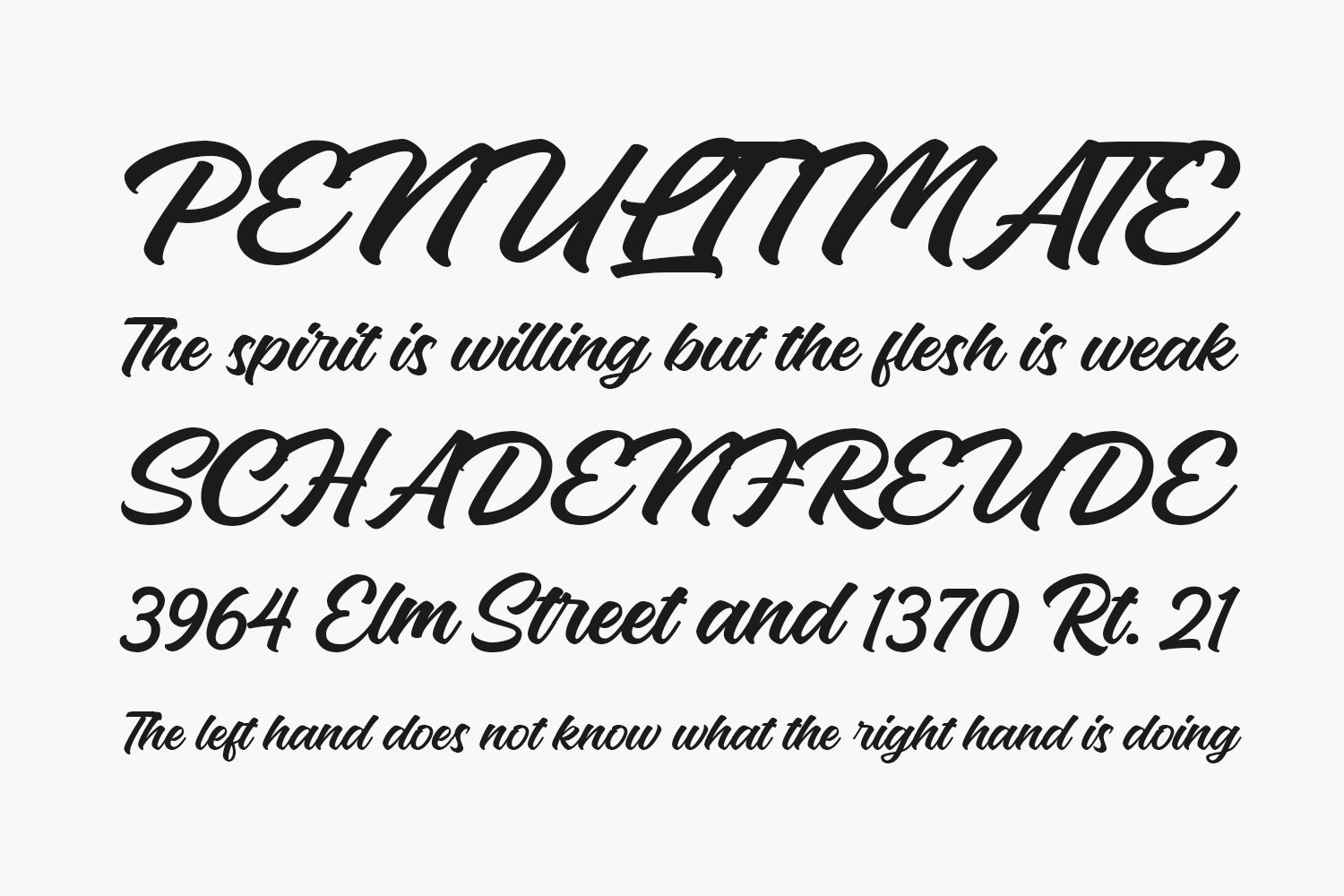
Srabi Script Free Font features an iconic vintage style and is the perfect font for any design project that requires a bold feel. Srabi Script Free Font was designed by HastaType and is free for personal use only. Please purchase the full version for commercial use.